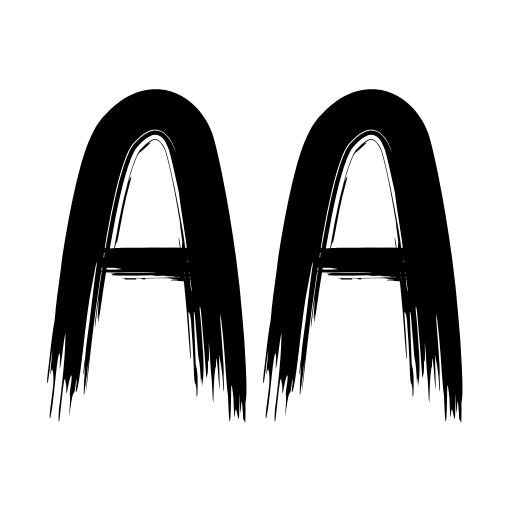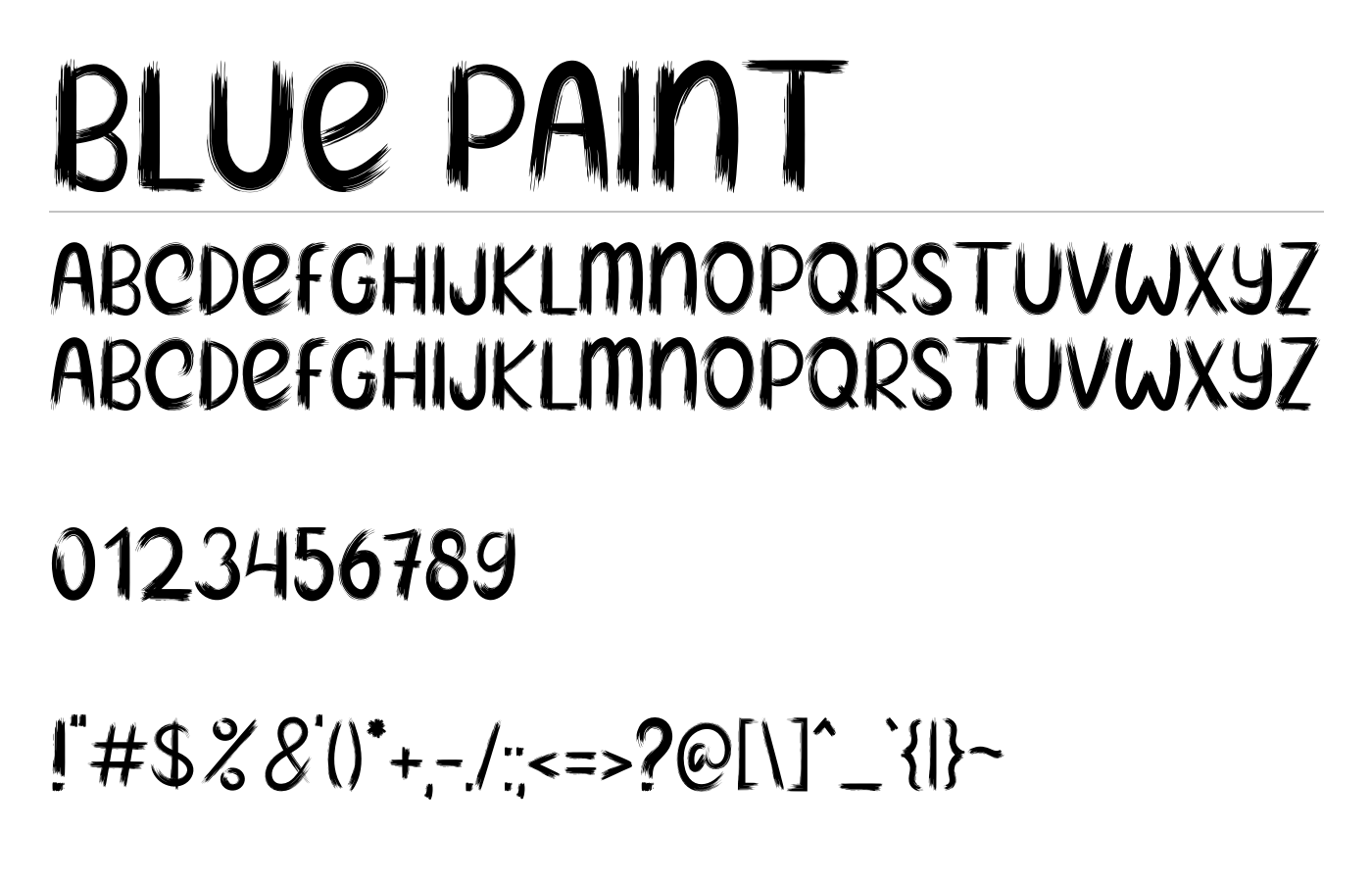
Blue Paint is a playful, hand-drawn sans serif font that mimics brush strokes with its textured, rough edges and uneven lines. Its casual, artistic feel makes it ideal for creative projects, informal branding, posters, and designs that want to evoke a handcrafted, energetic vibe. This font works best in headlines and display uses where its unique style can stand out and add personality.
Blue Paint Font
About Blue Paint Font
| Font family | Blue Paint Font |
| Designer | Andriyanto au |